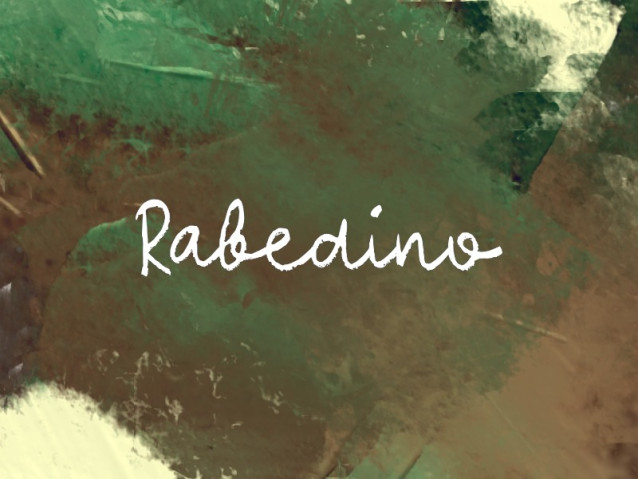
Rabedino Font
Rabedino Font is a simple and friendly handwritten font. Its natural and unique style makes it incredibly fitting to a large pool of designs. The only limit is your imagination!